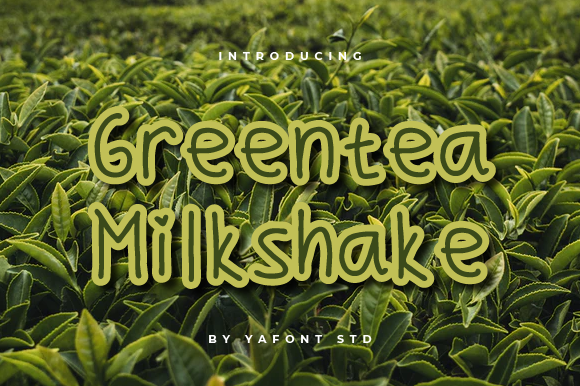
Introducing Greentea Milkshake Font: The Ultimate Display Font for Creative Minds
Are you tired of using the same old fonts for your creative projects? Look no further! Greentea Milkshake Font is here to revolutionize the way you approach design. This incredibly unique display font is masterfully designed to become a true favorite among designers and crafters alike. With its exceptional style and versatility, Greentea Milkshake Font has the potential to bring each of your creative ideas to the highest level!
What Makes Greentea Milkshake Font So Special?
Greentea Milkshake Font is not just another font – it’s an experience. Its distinctive design combines elegance and playfulness, making it perfect for a wide range of creative projects. Whether you’re working on a logo, branding, packaging, or social media graphics, this font is sure to make your design stand out from the crowd.
One of the key features that sets Greentea Milkshake Font apart is its unique blend of modern and vintage elements. The font’s sleek lines and curves are balanced by a hint of nostalgia, giving it a truly one-of-a-kind look that’s both fresh and timeless.
Endless Creative Possibilities with Greentea Milkshake Font
Greentea Milkshake Font is an incredibly versatile font that can be used for a wide range of creative projects. Here are just a few ideas to get you started:
- Logos and Branding: Create a memorable brand identity with Greentea Milkshake Font. Its unique style is perfect for crafting logos, business cards, and other branding materials that will leave a lasting impression.
- Social Media Graphics: Take your social media game to the next level with eye-catching graphics featuring Greentea Milkshake Font. From Facebook posts to Instagram stories, this font is sure to grab attention and drive engagement.
- Packaging Design: Make your product stand out on store shelves with beautiful packaging design featuring Greentea Milkshake Font. Its elegant style is perfect for food, beverage, and lifestyle products.
- Invitations and Stationery: Add a touch of elegance to your invitations, cards, and stationery with Greentea Milkshake Font. Its unique style is sure to impress friends, family, and clients alike.
Why Choose Greentea Milkshake Font?
With so many fonts available, why choose Greentea Milkshake Font? Here are just a few reasons why designers and crafters are falling in love with this incredible display font:
- Unique Style: Greentea Milkshake Font offers a truly unique style that’s unlike anything else on the market.
- Ease of Use: This font is incredibly easy to use, even for those with limited design experience.
- High-Quality Design: Greentea Milkshake Font is masterfully designed to deliver exceptional results in any design project.
- Versatility: This font can be used for a wide range of creative projects, from logos and branding to social media graphics and packaging design.
Get Ready to Elevate Your Designs with Greentea Milkshake Font
In conclusion, Greentea Milkshake Font is an incredibly unique display font that’s sure to become a favorite among designers and crafters. Its exceptional style, versatility, and ease of use make it the perfect choice for a wide range of creative projects. Whether you’re working on a logo, social media graphics, packaging design, or stationery, Greentea Milkshake Font is the perfect tool to help you bring your creative ideas to life.